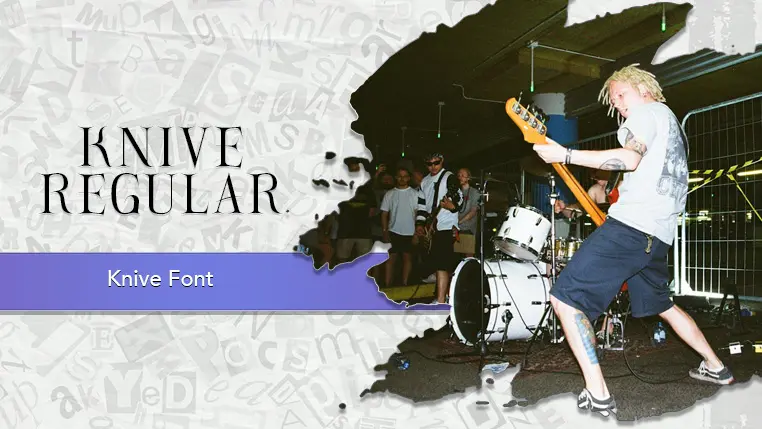
The Knive font family may be ideal for you if you enjoy working on an artistic design project. The lively, expressive look of this typeface, which was created by Leonhard Katschne, makes it ideal for Album covers and promotional materials for rock, metal, punk, or alternative bands. Concert posters, festival branding, or music event flyers. Titles for music videos or documentaries about subcultures. Logos and branding for clothing lines, skate shops, or urban lifestyle brands. Graphics for street art projects, zines, or independent publications. Book covers for thrillers, horror novels, or dystopian fiction. and other light-hearted visual projects.
Regular are the one primary font styles of the Knive font family. You may build dynamic, visually appealing text layouts with the distinct flair that each style offers. With crisp, readable lines and a relaxed tone.